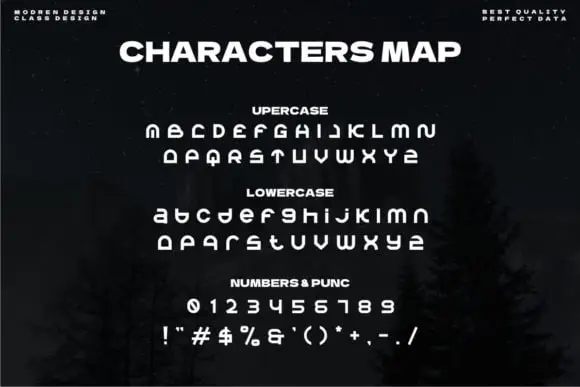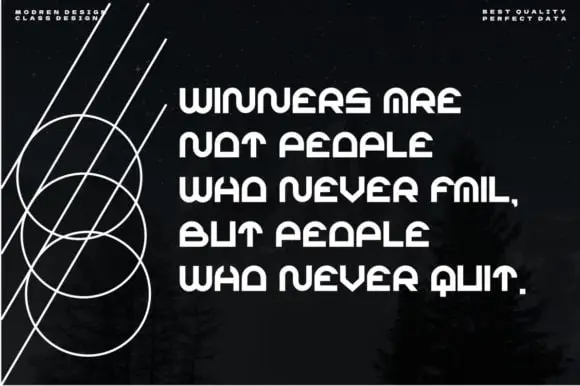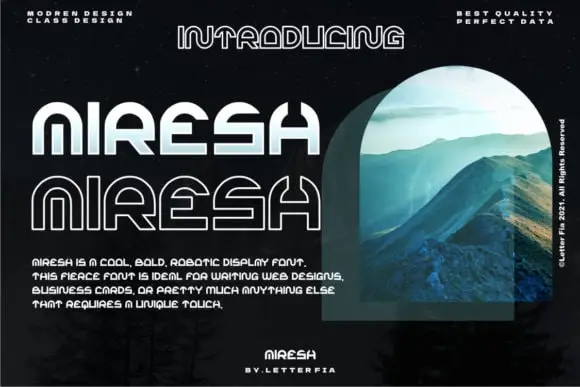
Airesh Font
The Airesh Font is a beautifully crafted typeface that combines elegance with modern design. Perfect for a variety of applications, this font is ideal for branding, logos, web design, print materials, and user interfaces.
• Multiple weights for versatile usage
• Ideal for creating eye-catching logos and branding materials
• Great for web typography to enhance user experience
• Use in print designs such as business cards, brochures, and flyers